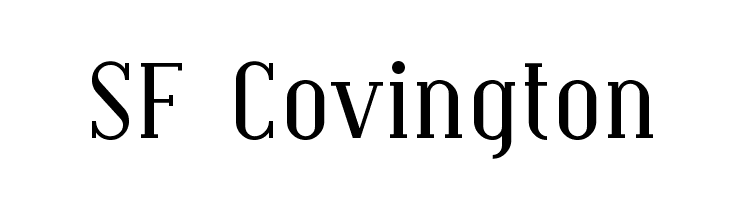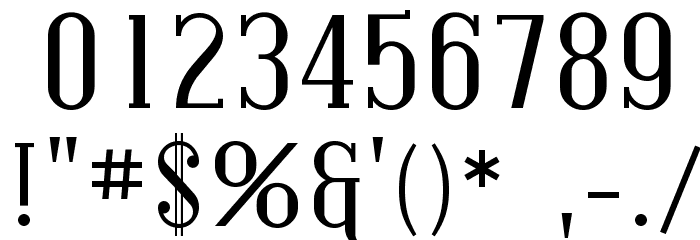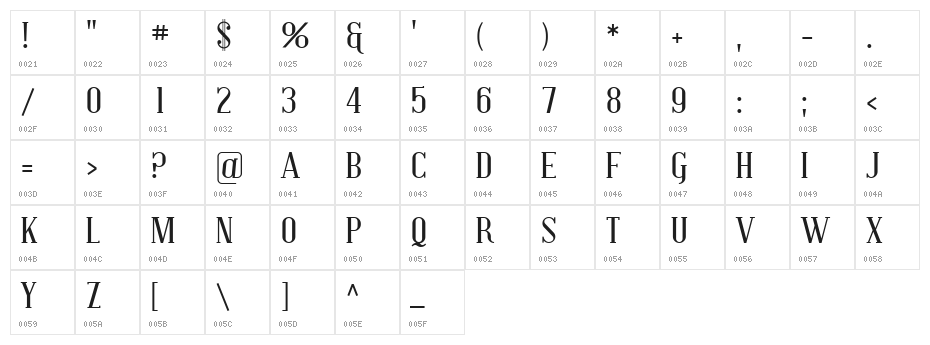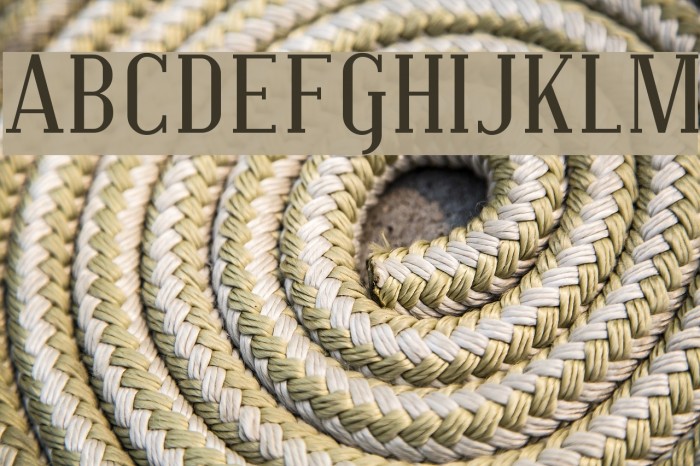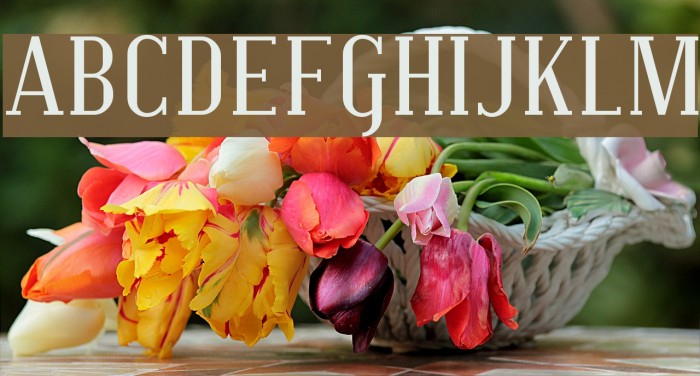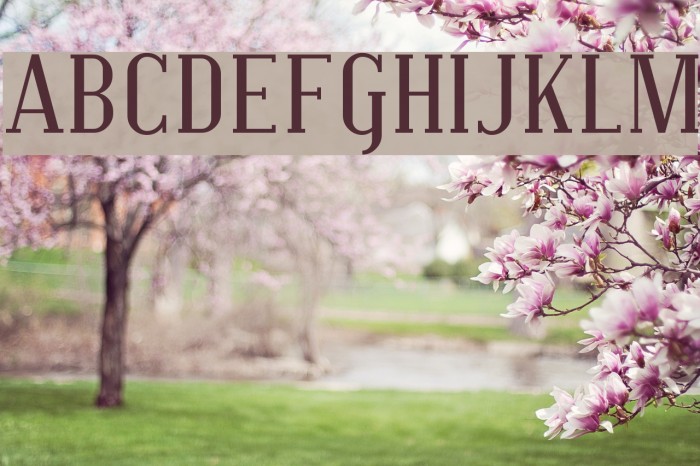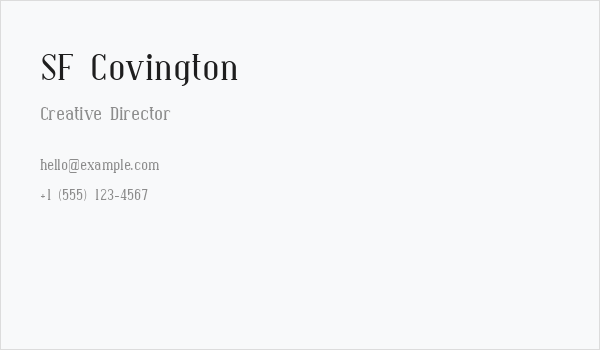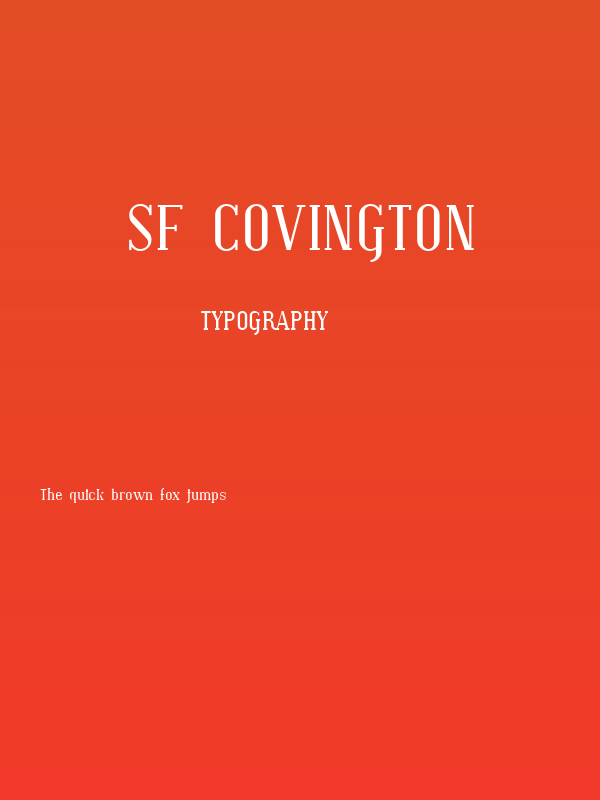
SF Covington Font
SF Covington Description
This font features a classic serif design with a modern twist, characterized by its tall, narrow letterforms and sharp serifs. The uppercase letters exhibit a strong presence with their elongated verticals and subtle curves, while the lowercase letters maintain a consistent rhythm and balance. The numerals are designed with clarity and precision, making them easily readable. Special characters are thoughtfully crafted to complement the overall aesthetic. The font's elegant style is suitable for a variety of applications, offering both sophistication and readability.